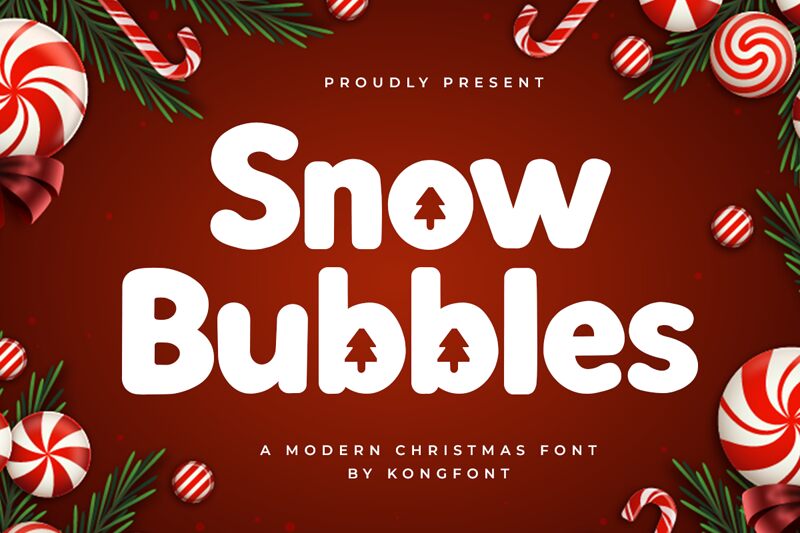
Snow Bubbles font by Kong Font enchants with its inviting curves and smooth, rounded design. Created with a holiday charm, this free font fits perfectly into projects looking for a touch of cheerfulness and contemporary elegance. Its playful yet modern appearances make it a great choice for various design needs that call for a festive and casual feel.
The font is ideally used for holiday-themed designs, greetings, promotions, and other applications that require a joyful touch. Snow Bubbles can be the perfect font for decorating invitations, posters, social media graphics, website headers, or advertising campaigns, capturing the cheerful spirit that the festive season brings.